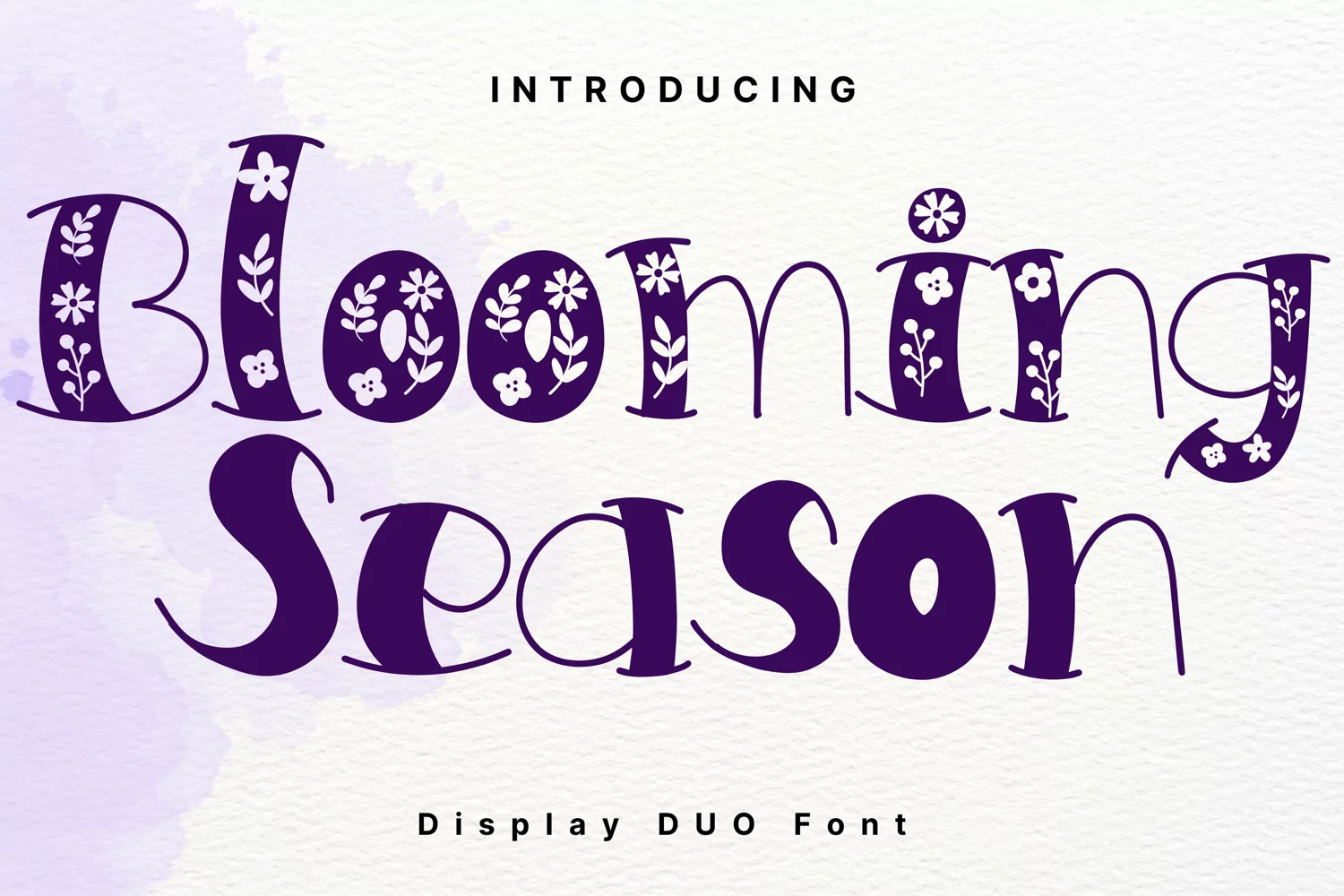
Blooming Season Duo Style
Blooming Season Duo Style is a whimsical and clean handwritten font. It can easily be matched to an incredibly large set of projects, so add it to your creative ideas and notice how it makes them stand out!